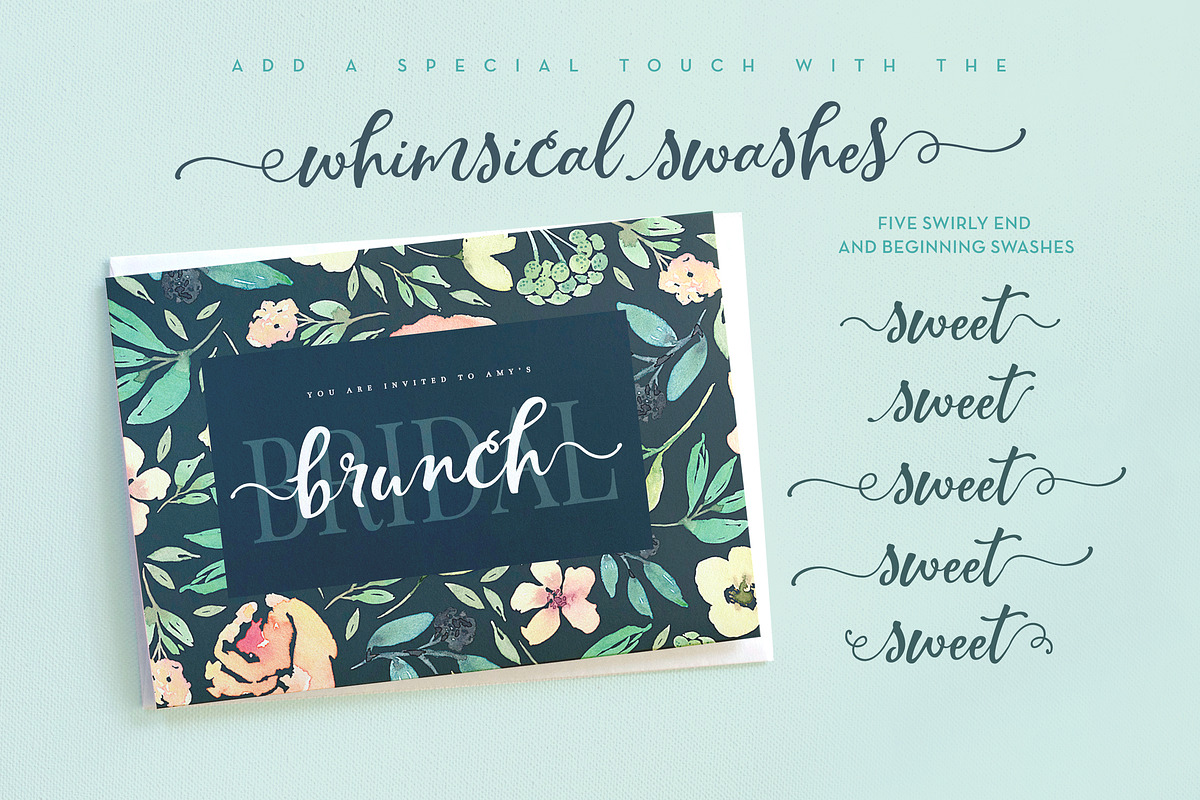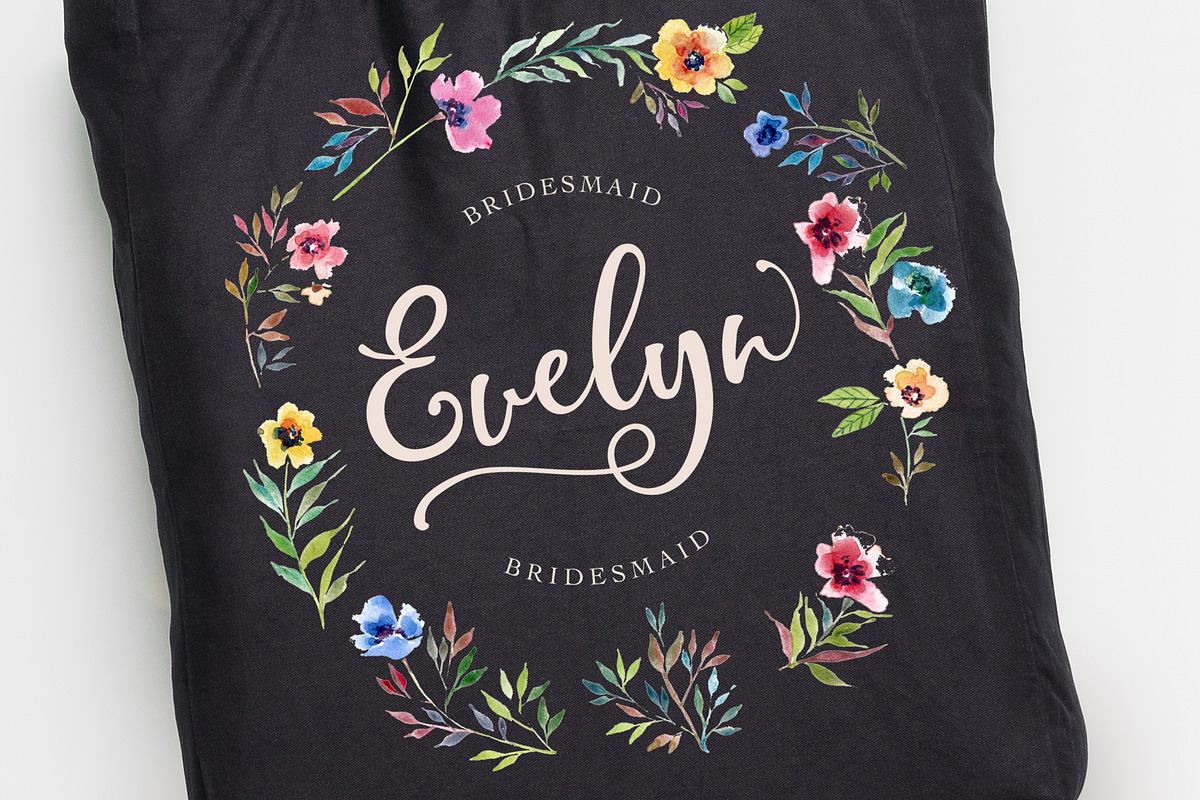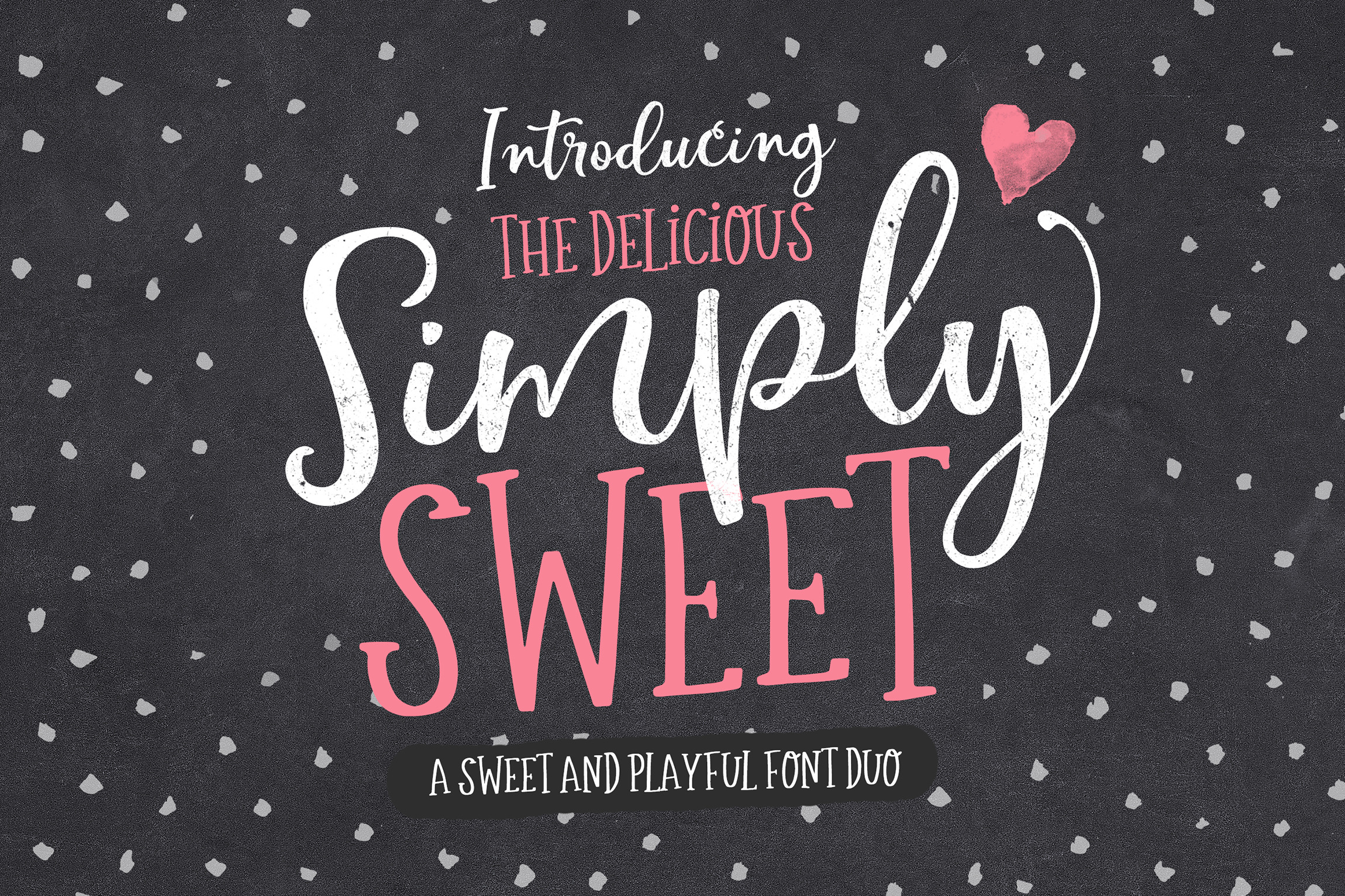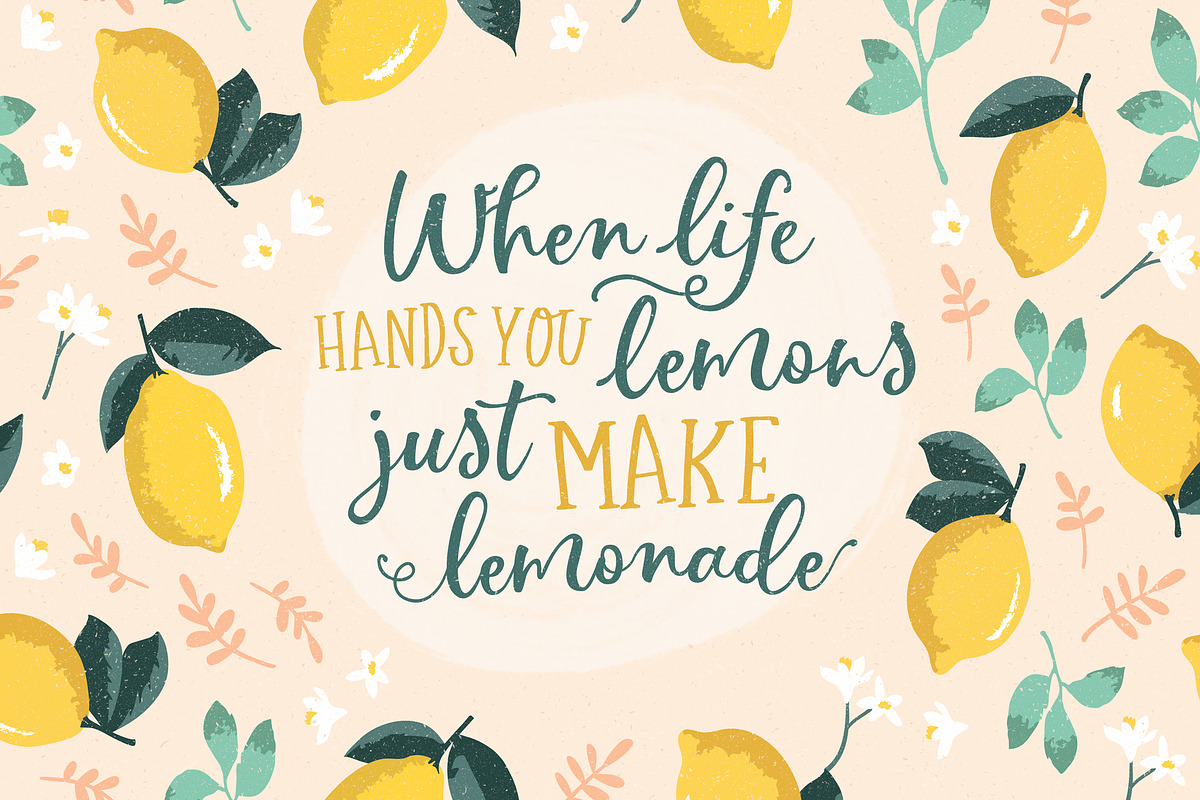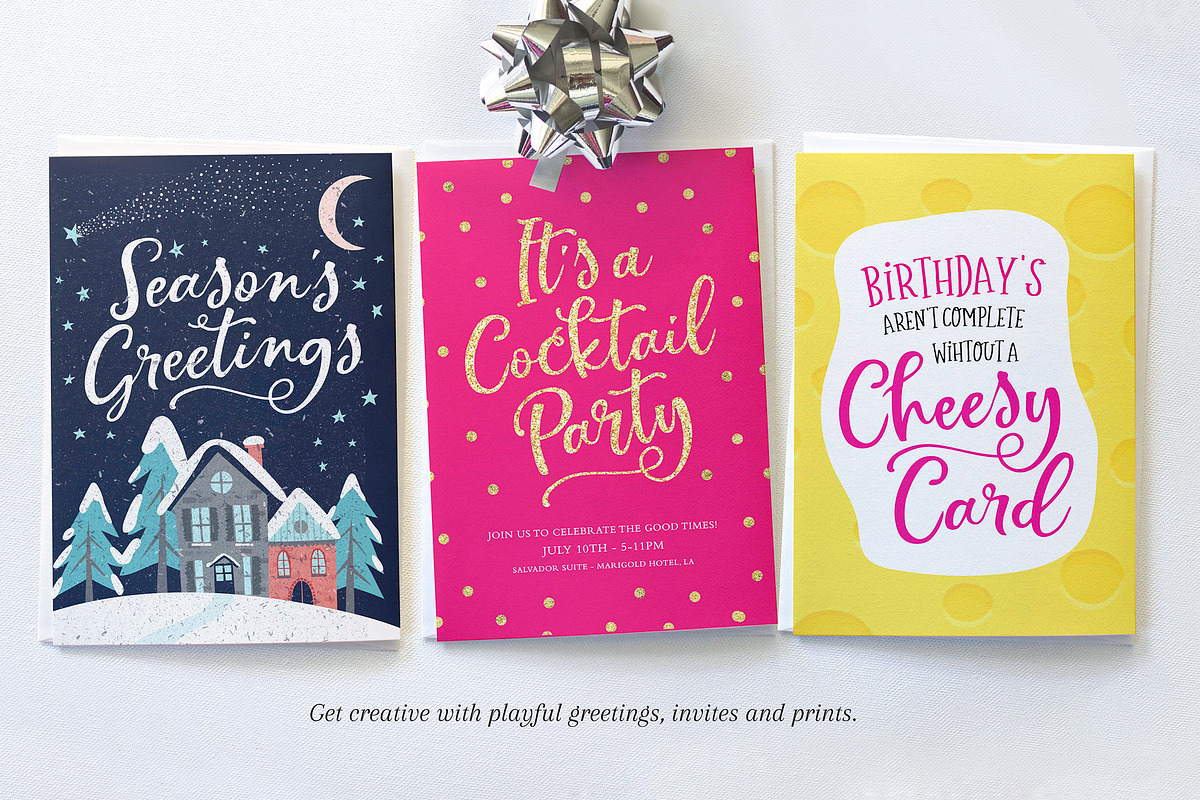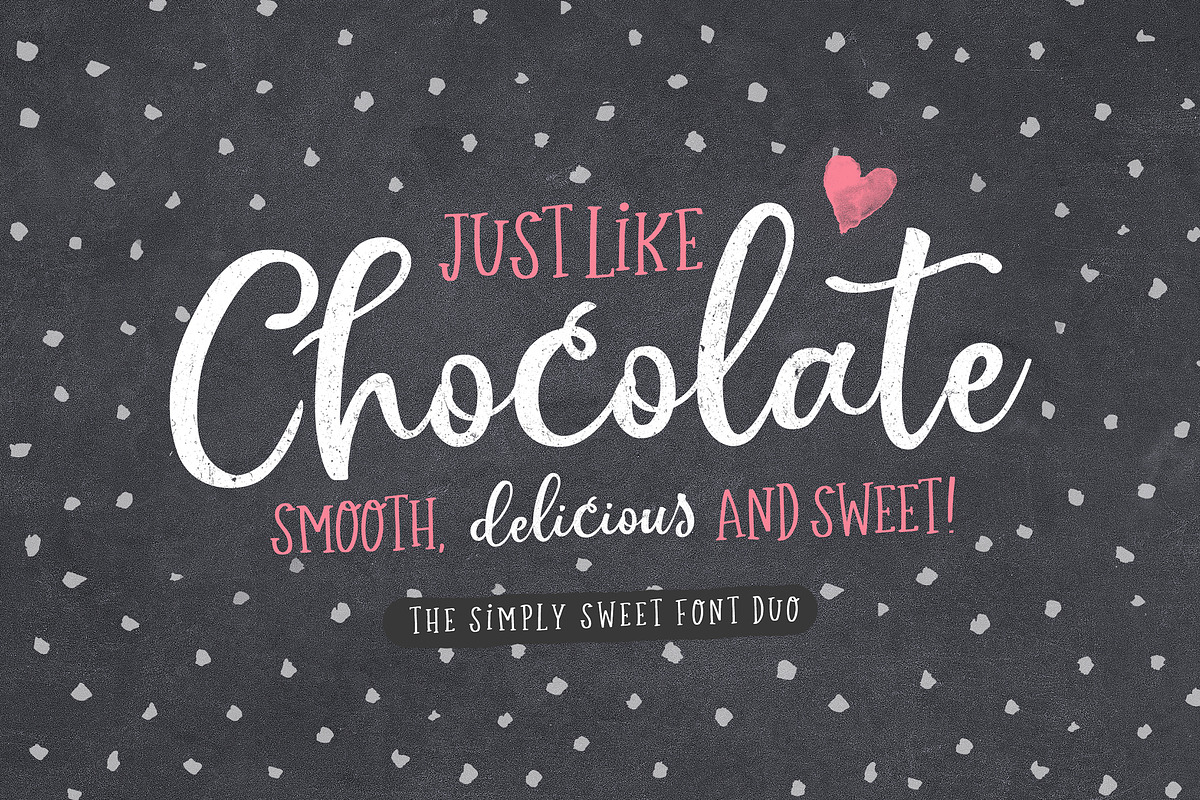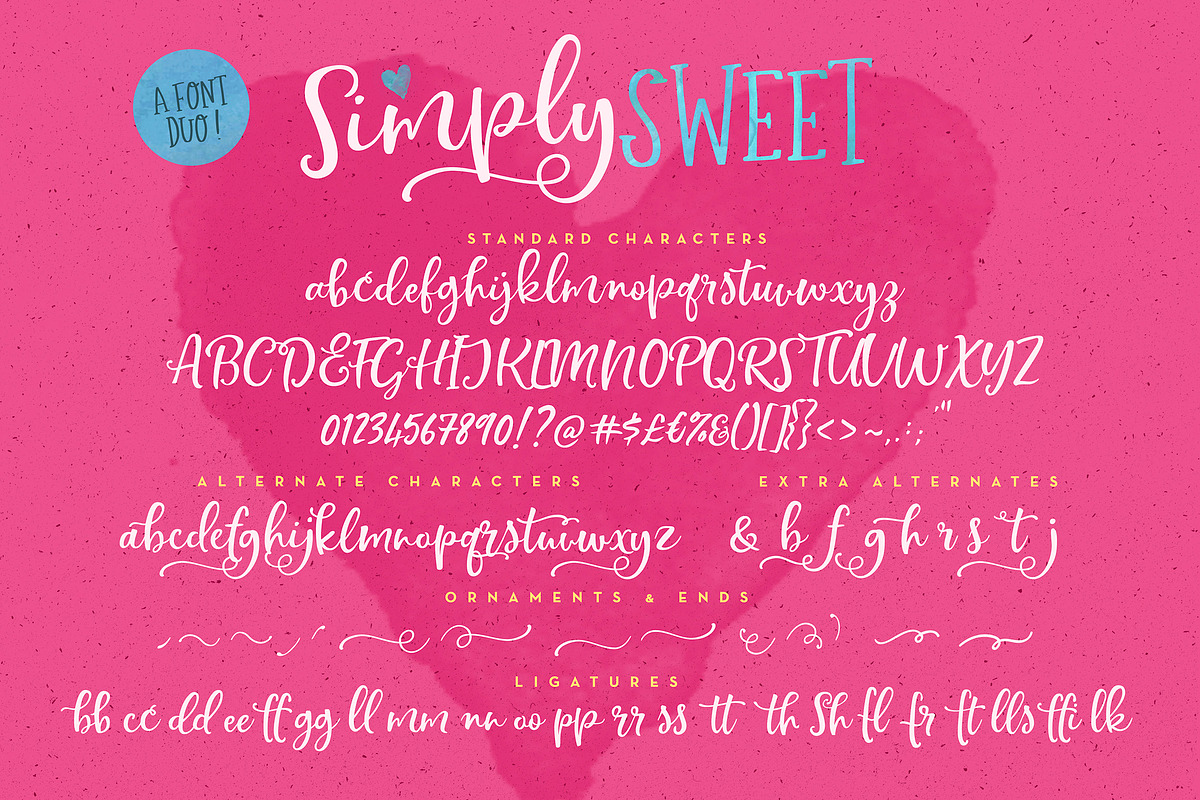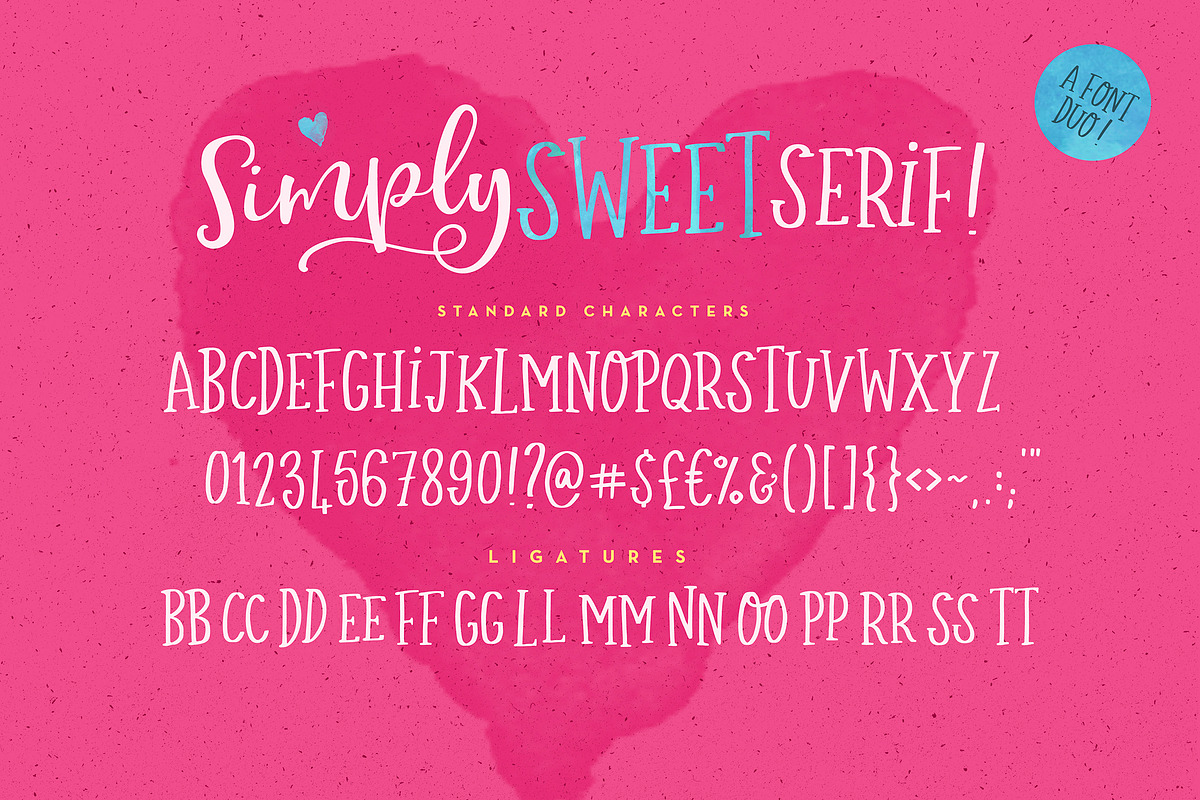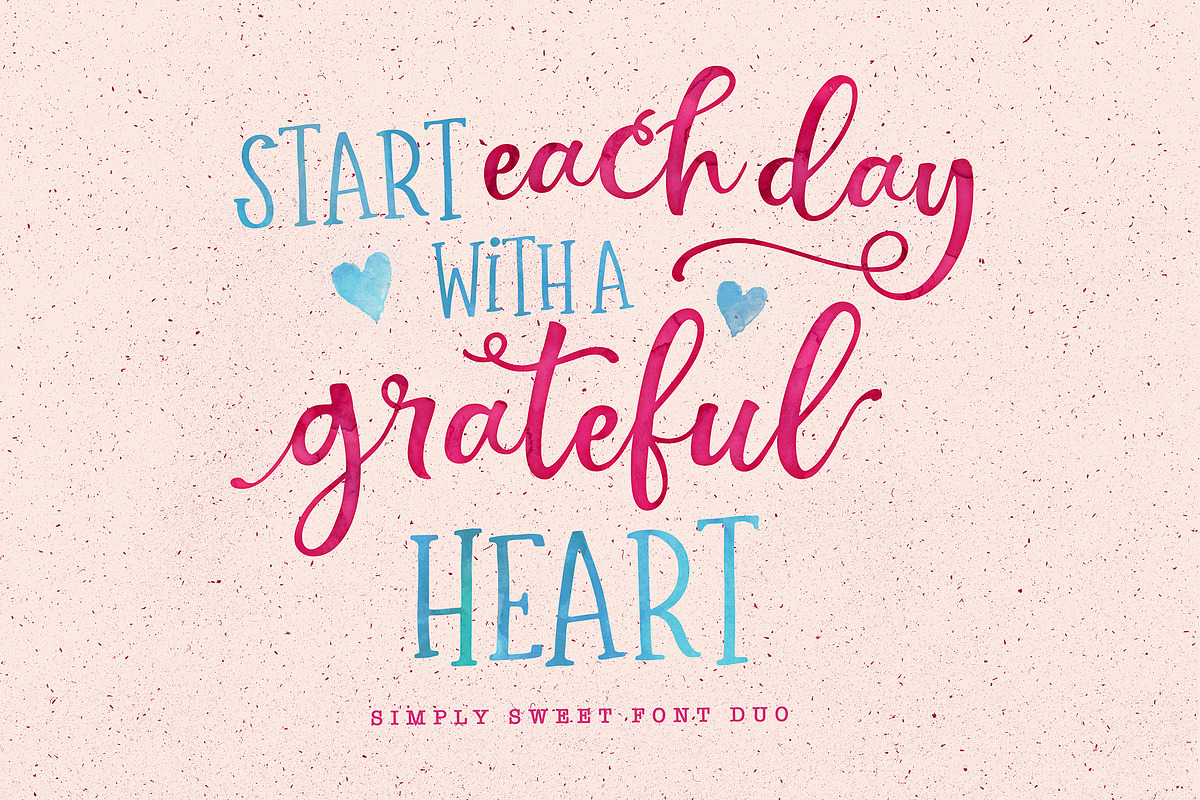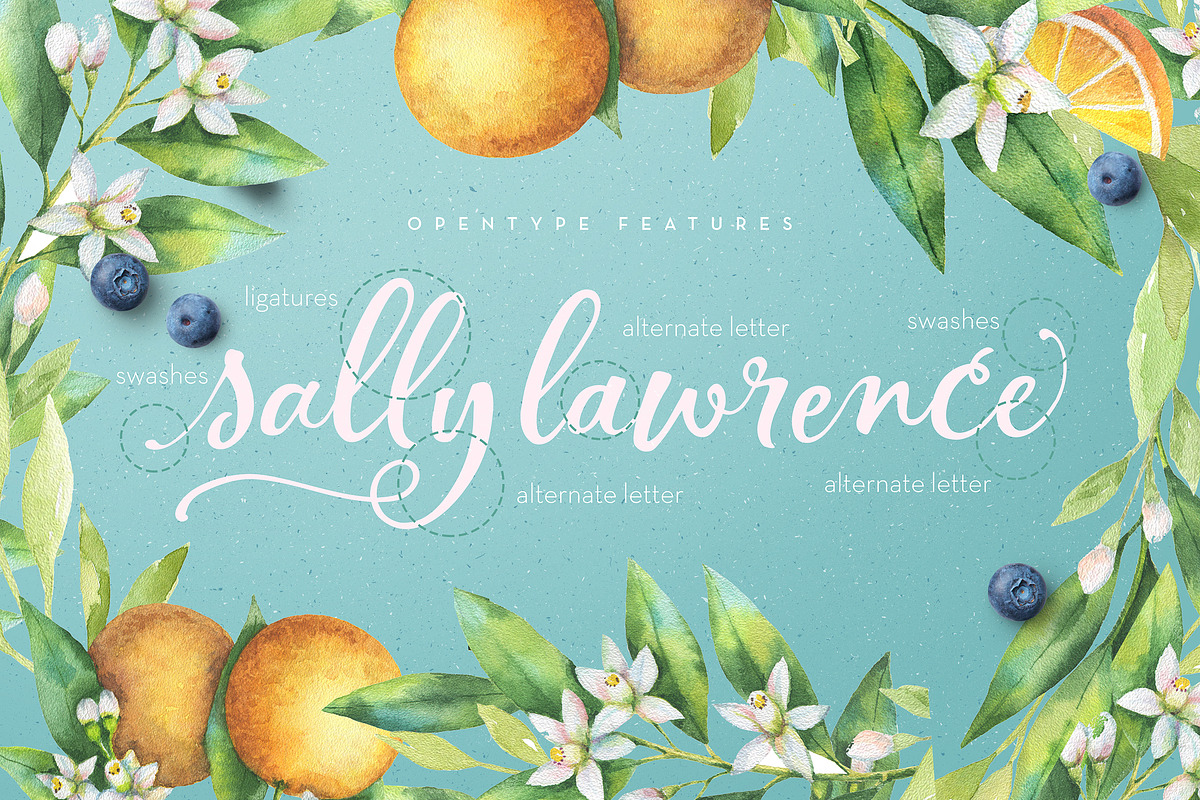
The Simply Sweet Font Duo
Say hello to "SIMPLY SWEET!" , a delicious new Font Duo that together make super sweet designs!
Flamboyant and curvaceous, the playful script includes a large selection of alternate characters to choose from as well as natural looking ligatures to add to the authenticity of the lettering. A collection of whimsical end and beginning swashes are also included to add a finishing touch or fill design space in your type designs.
Complimenting it, is a cute little wonky all caps serif font , with double letter ligatures for a natural look.
Simply Sweet Script makes custom lettering a dream thanks to all the little extra decorative options you can include for a pretty and unique customisation - swashes, endings, alternate letters and ligatures all make her the prettiest little thing since tutus and tiaras.
Perfect for greetings, branding, prints, invitations, crafting, quotes, merchandise, SVGs and so much more.